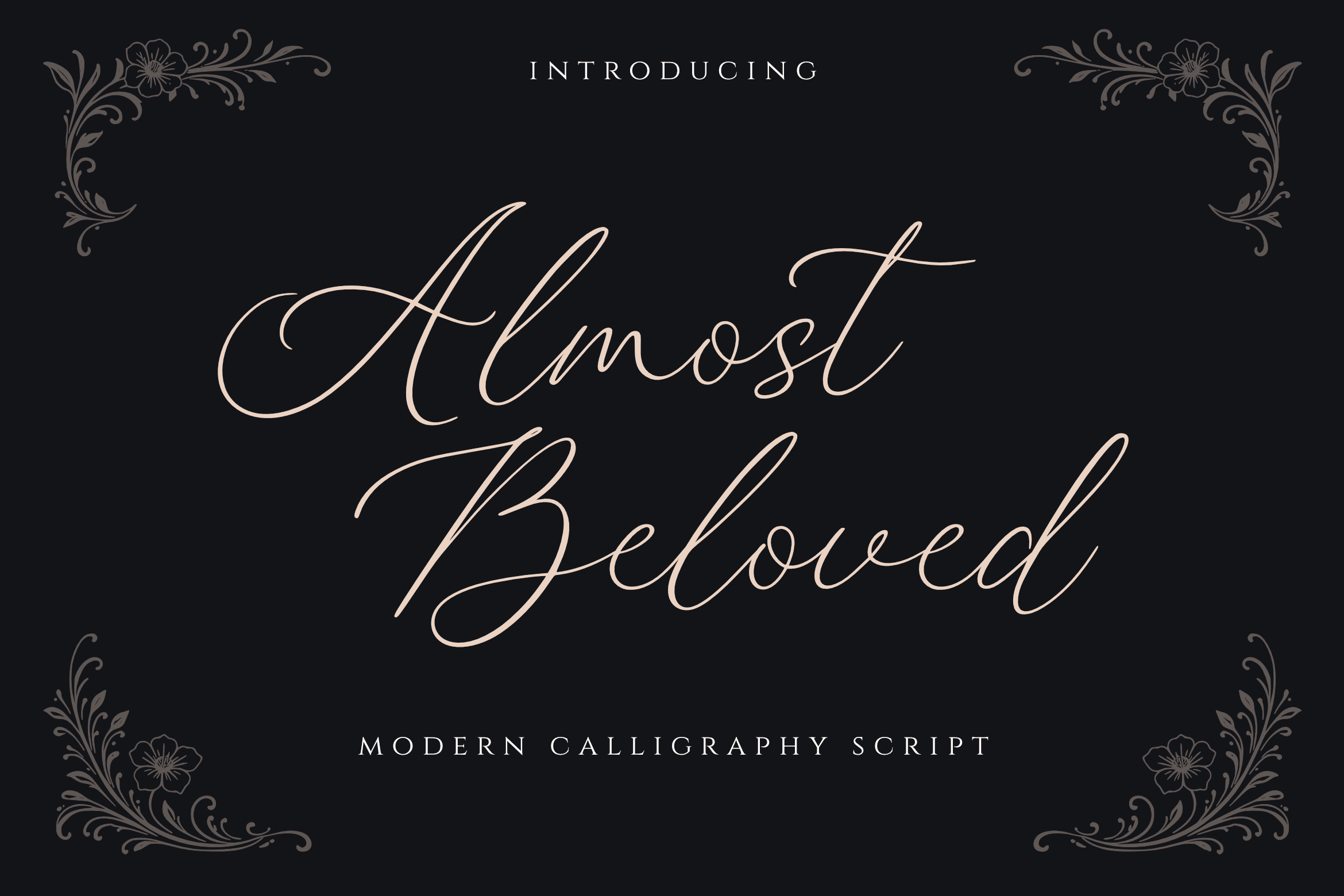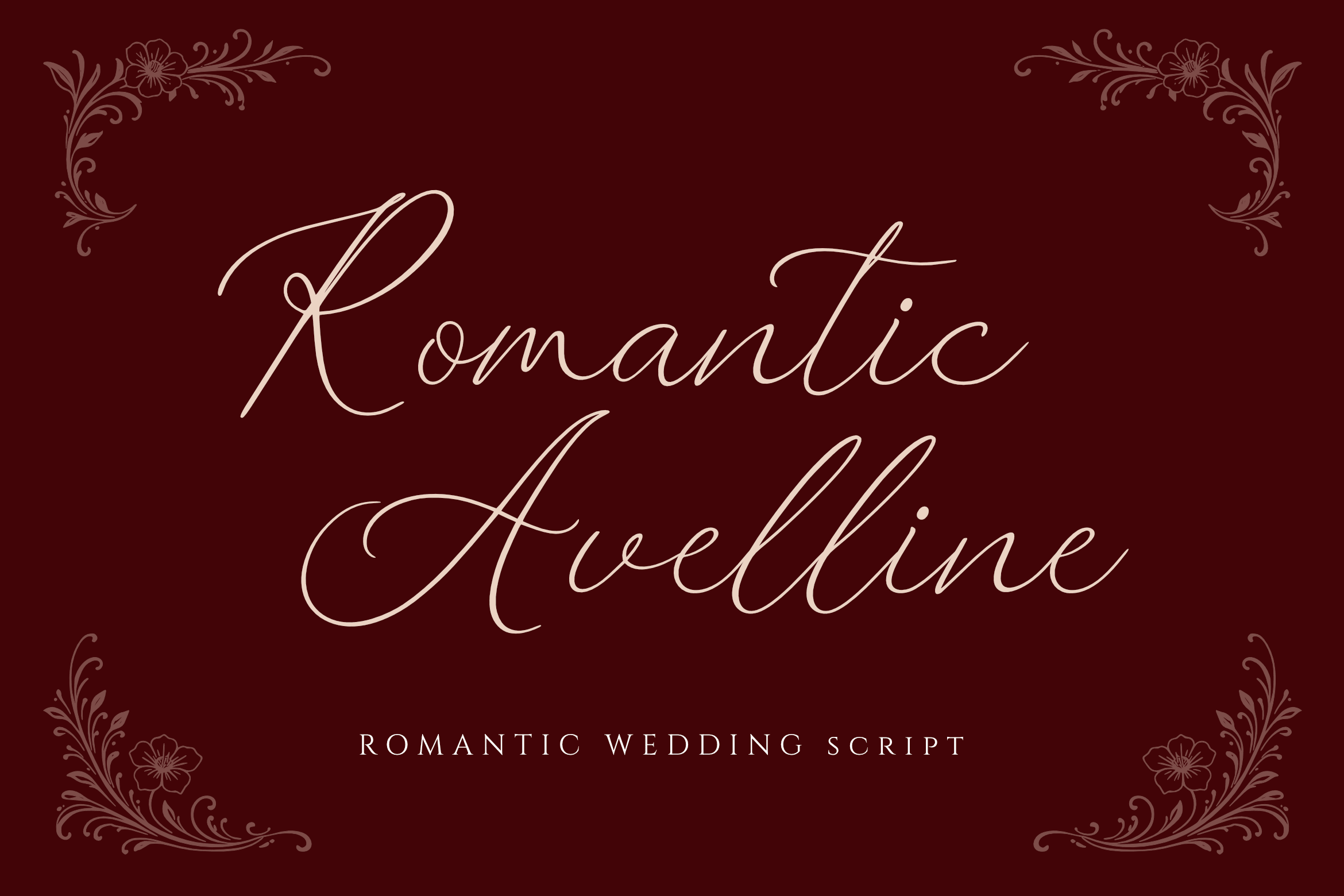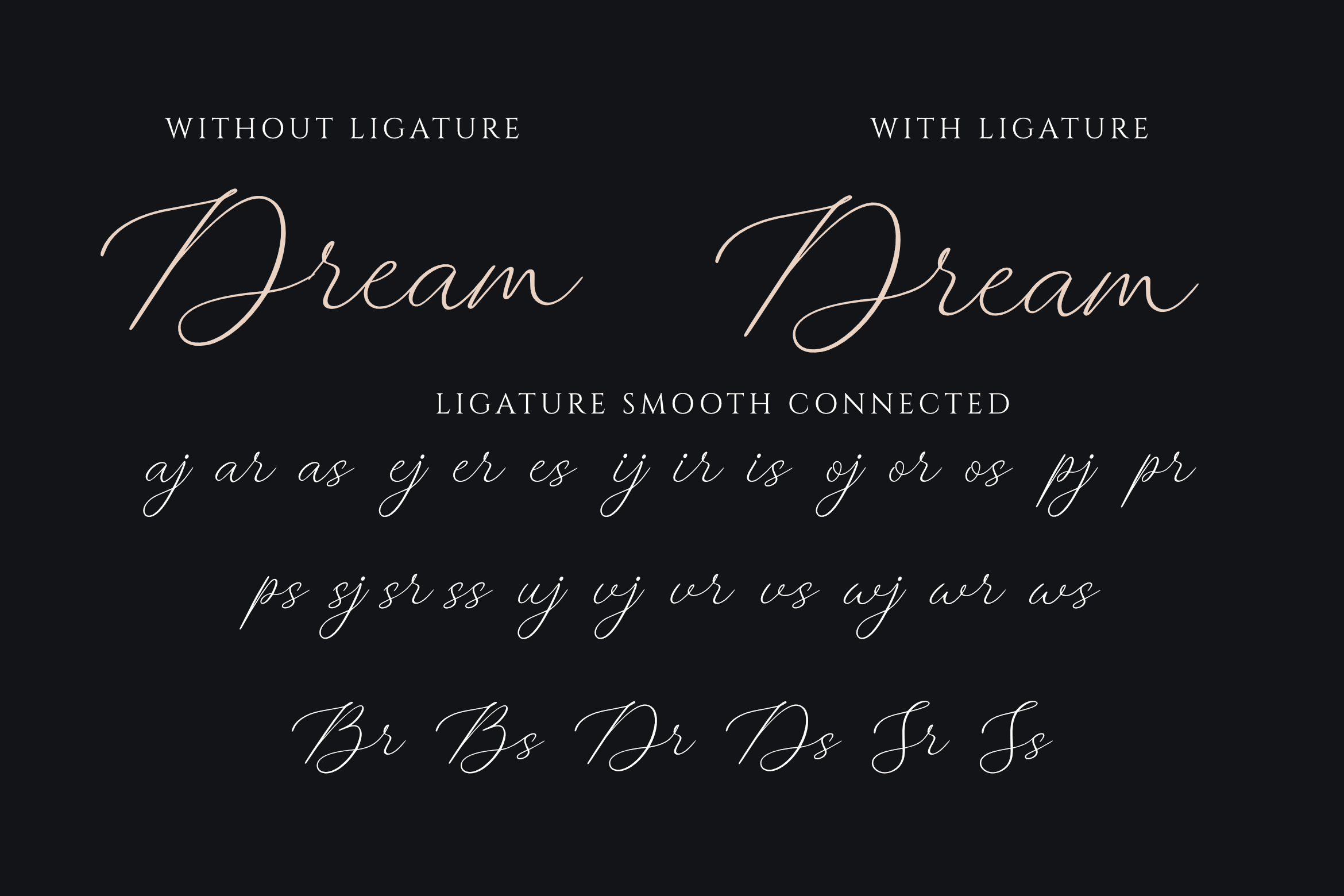
Perfect for wedding branding, luxury invitations, beauty packaging, signature logos, lifestyle brands, greeting cards, social media content, and high-end editorial designs, Almost Beloved adds a soft yet striking presence to any project. The long flowing swashes and refined curves create a beautiful balance between modern elegance and timeless charm.
Alternate Characters
Ligatures & Stylistic Features